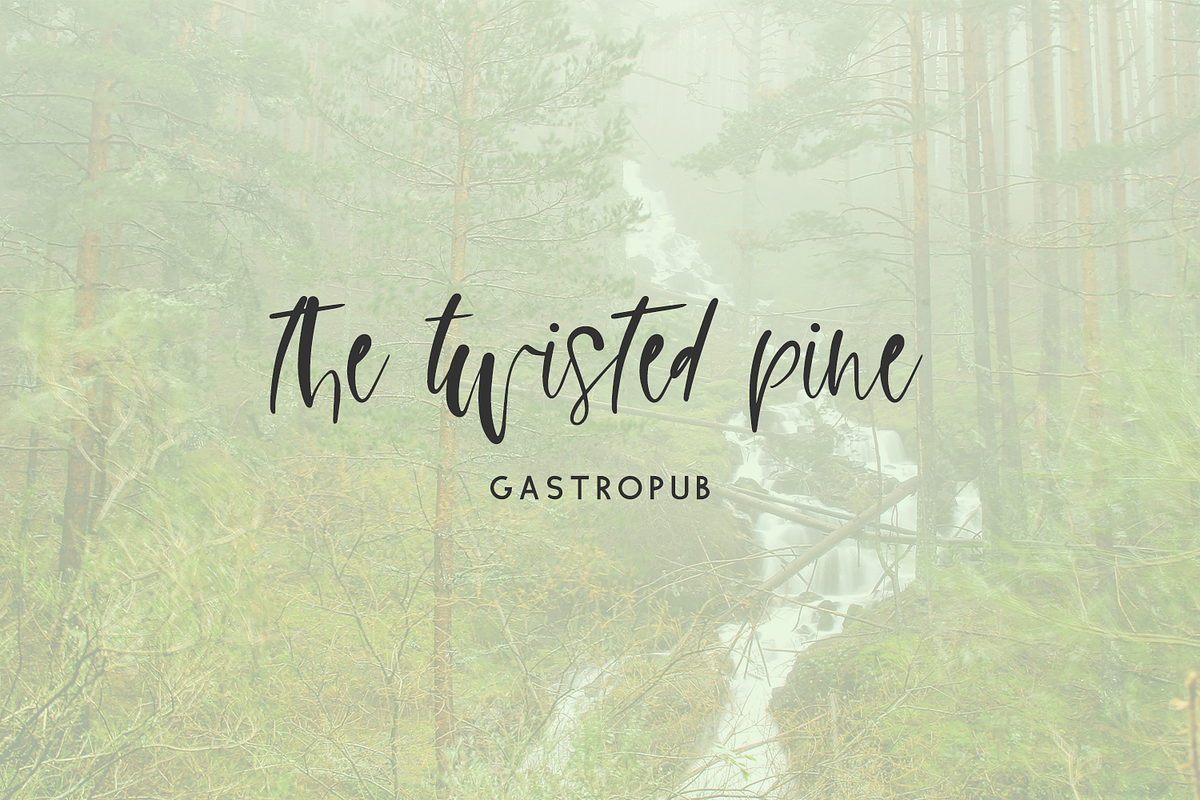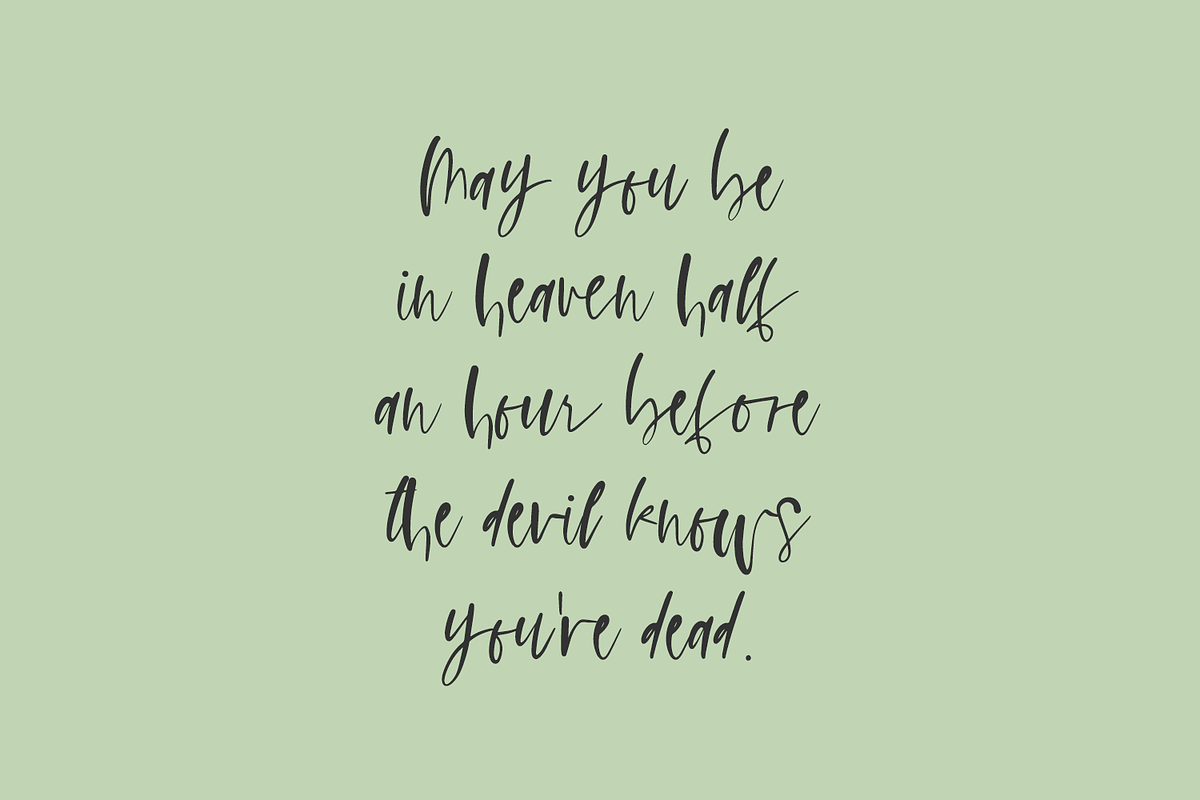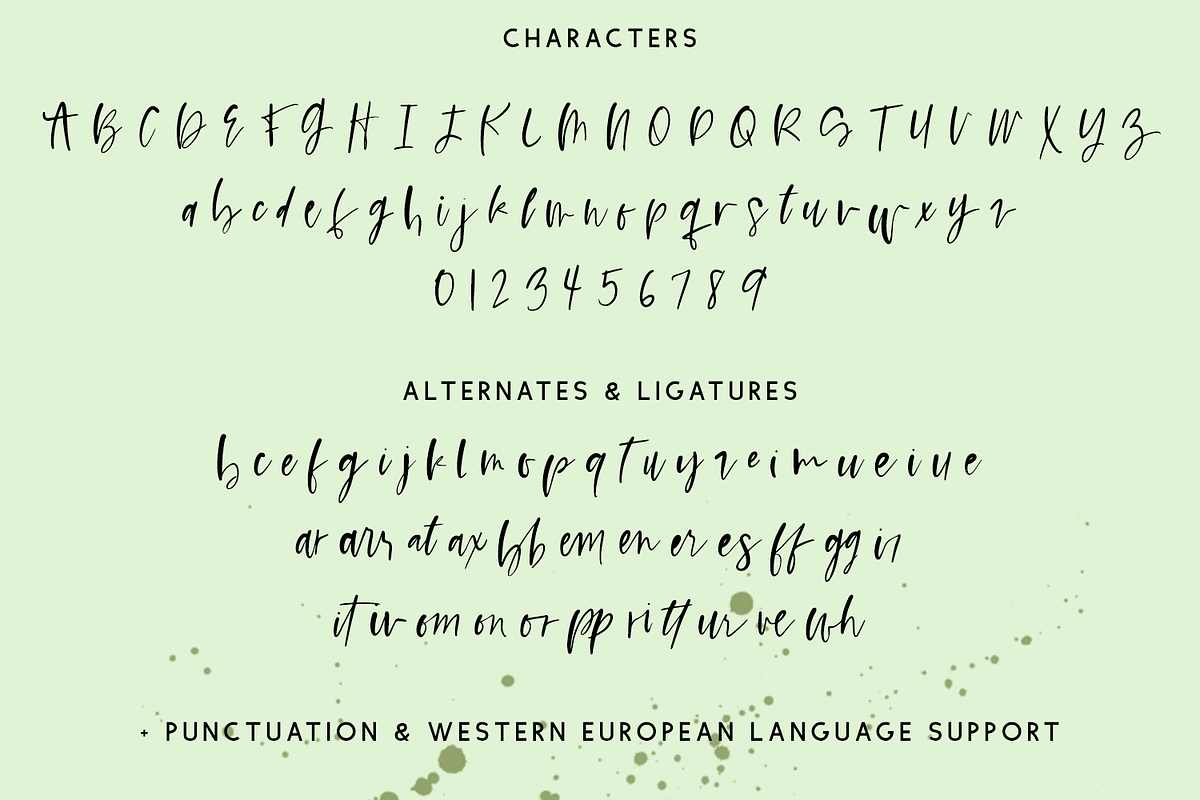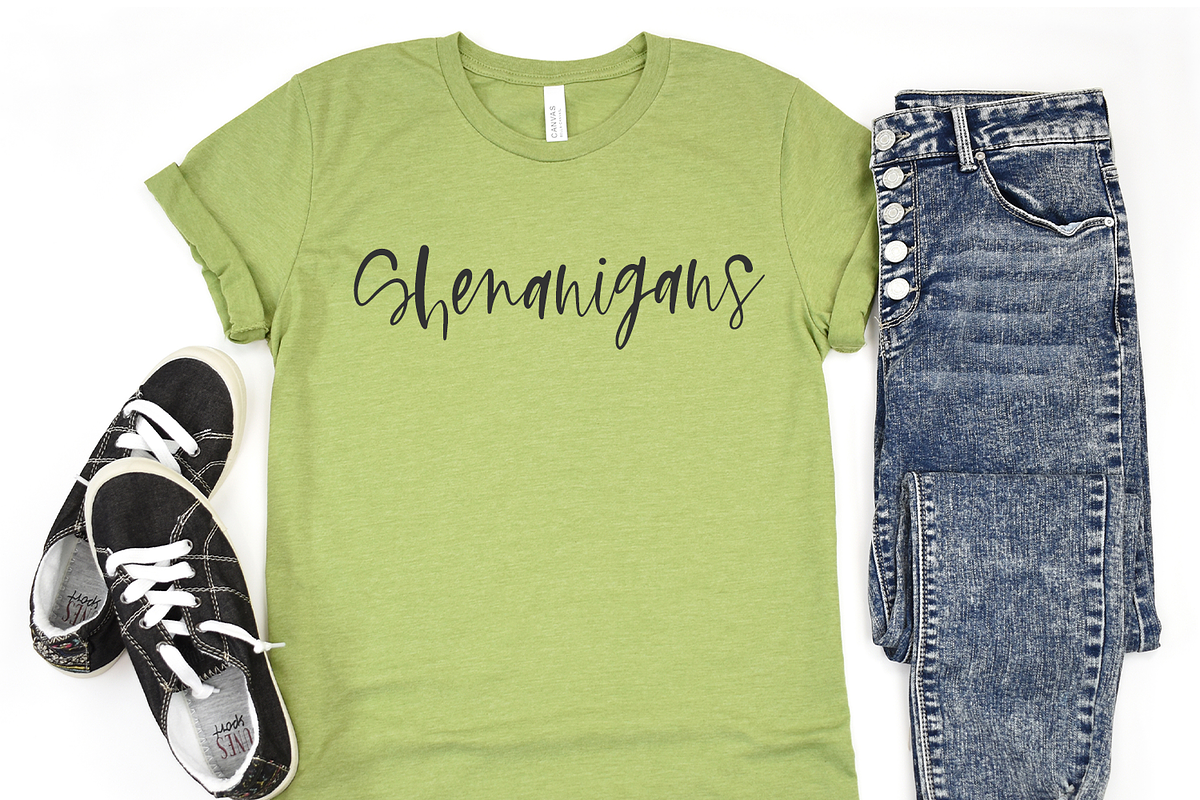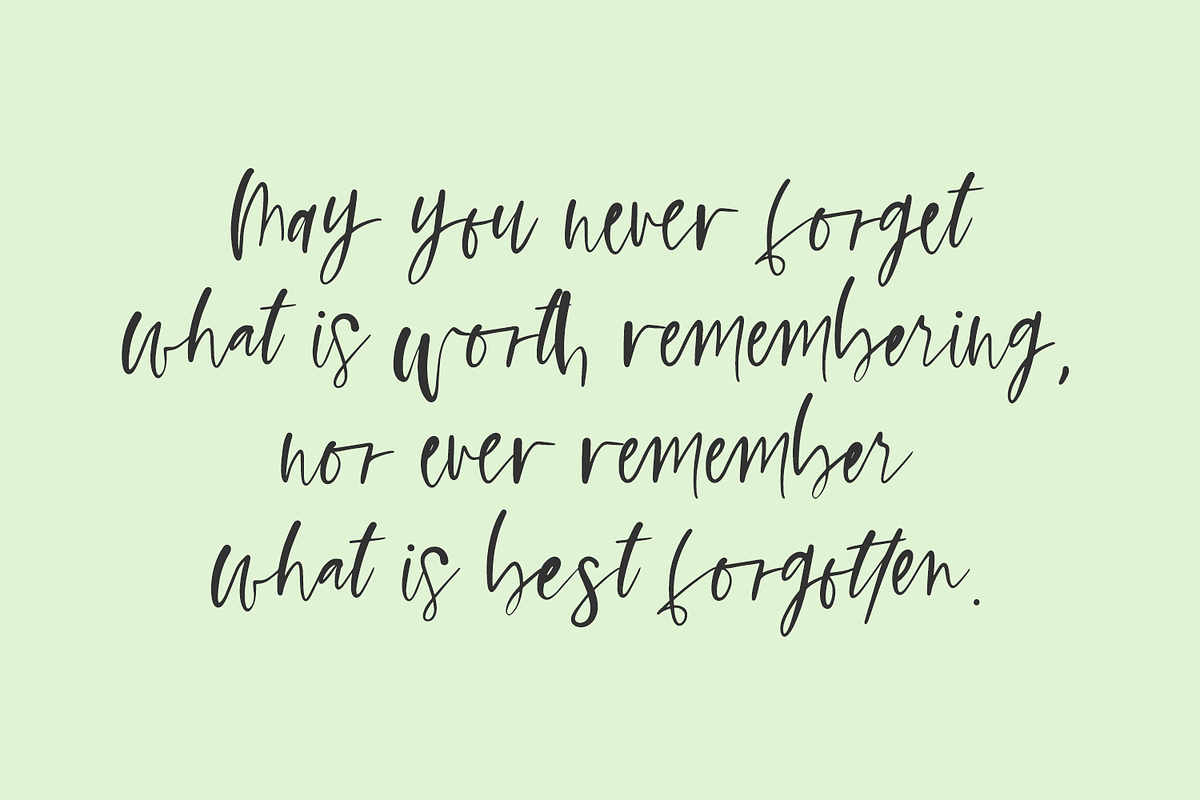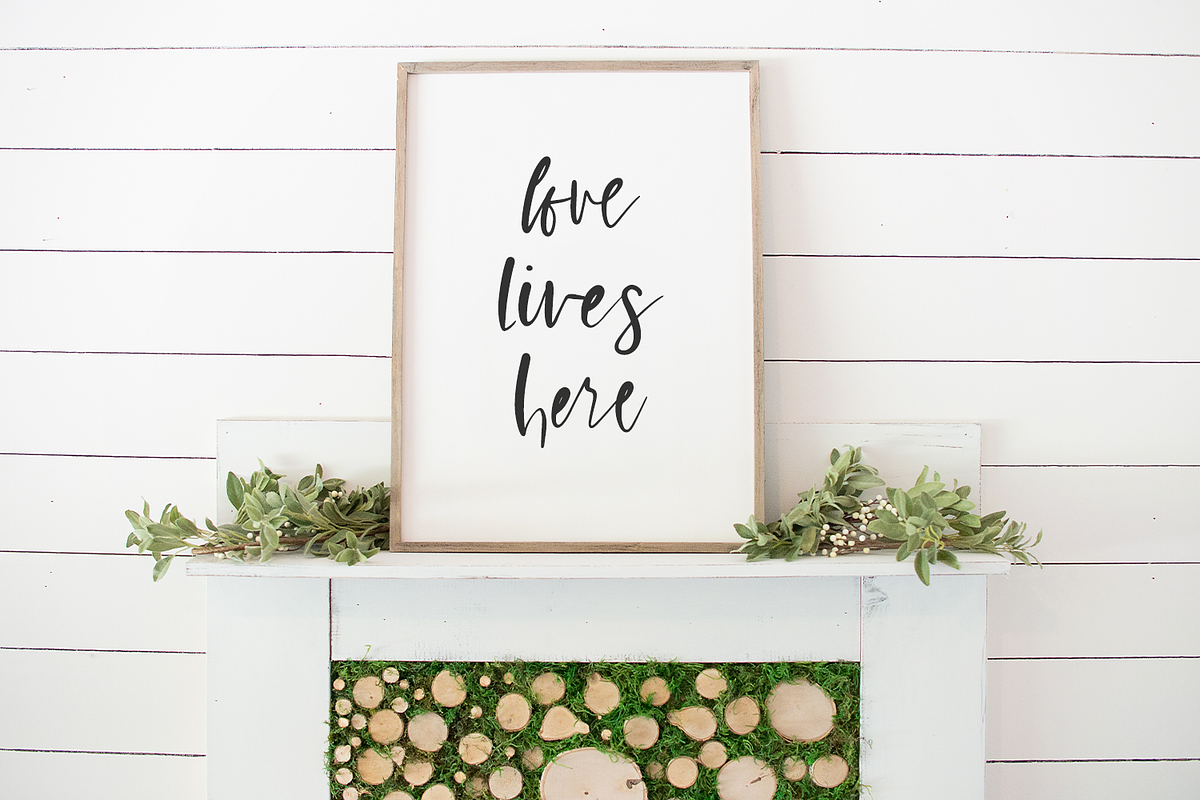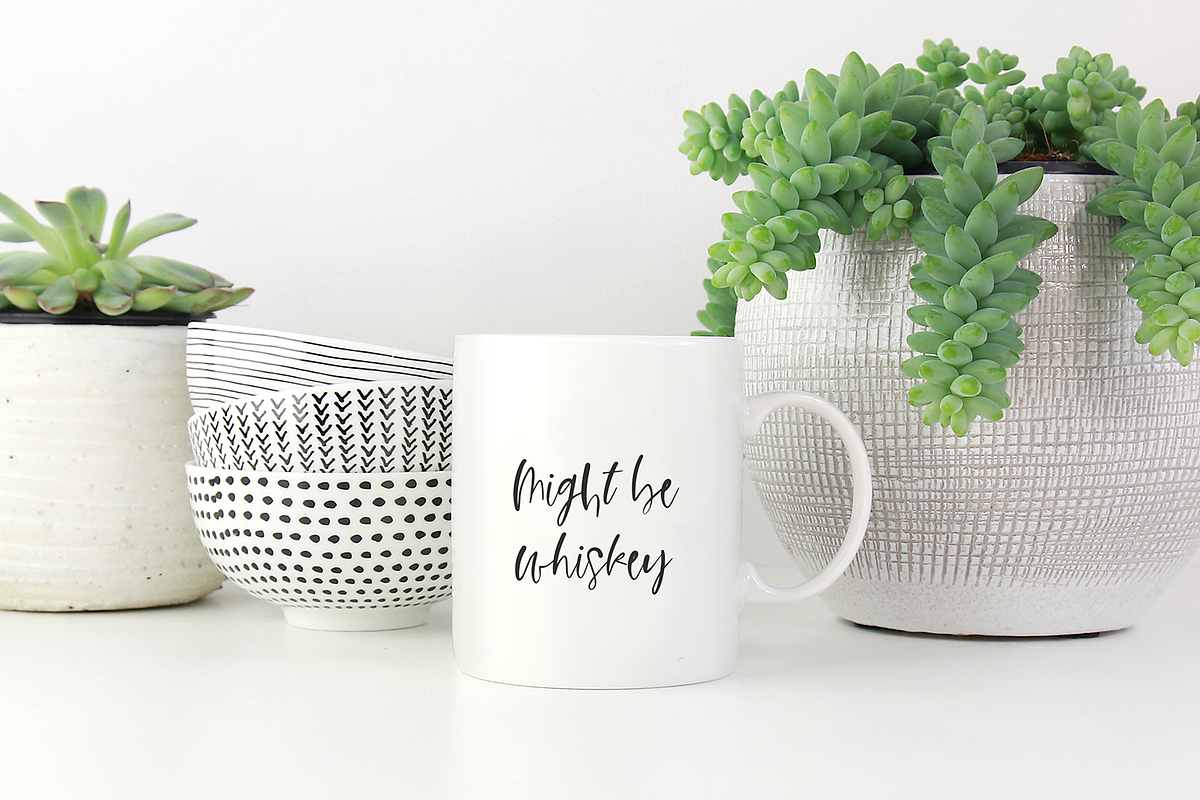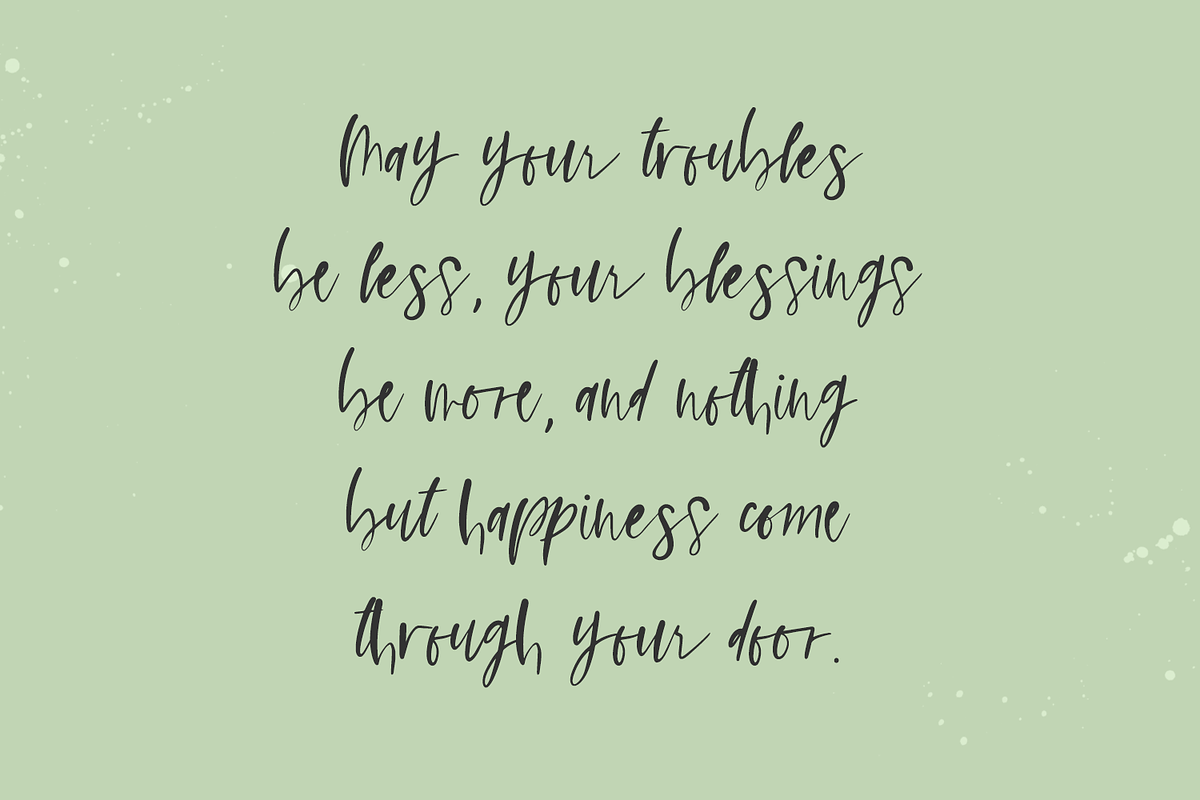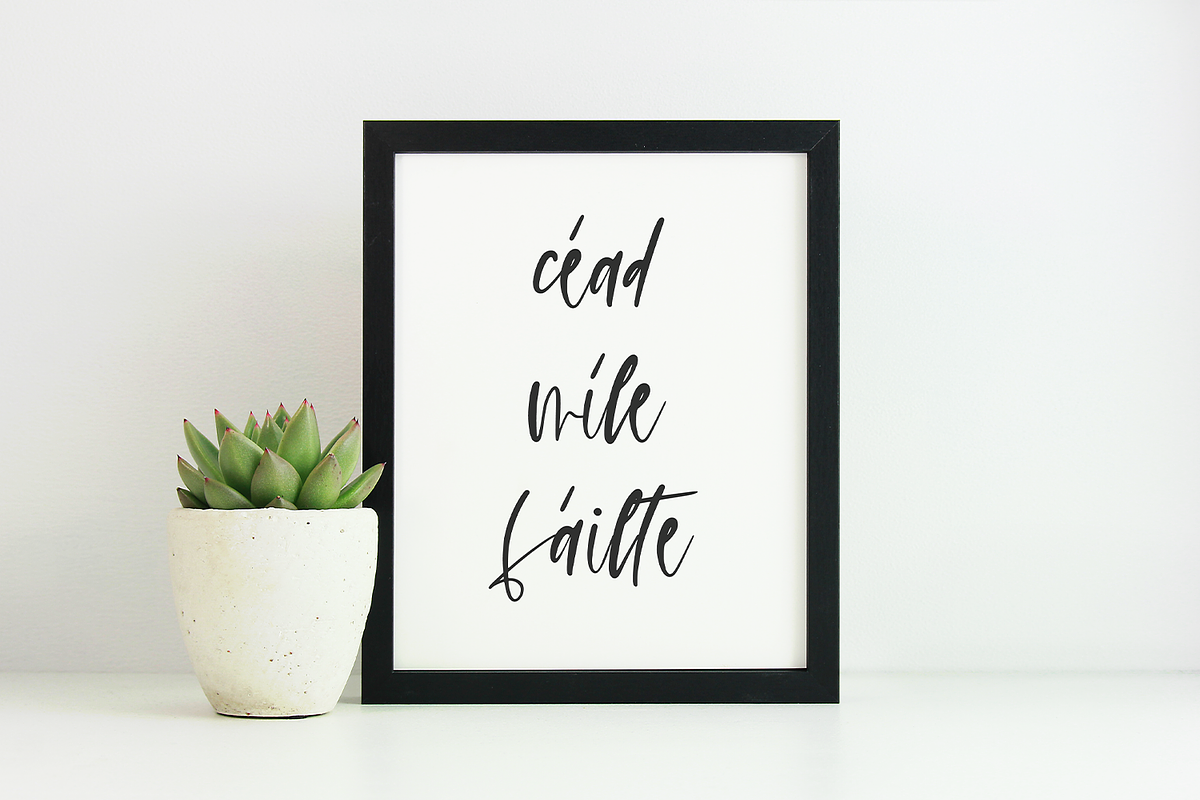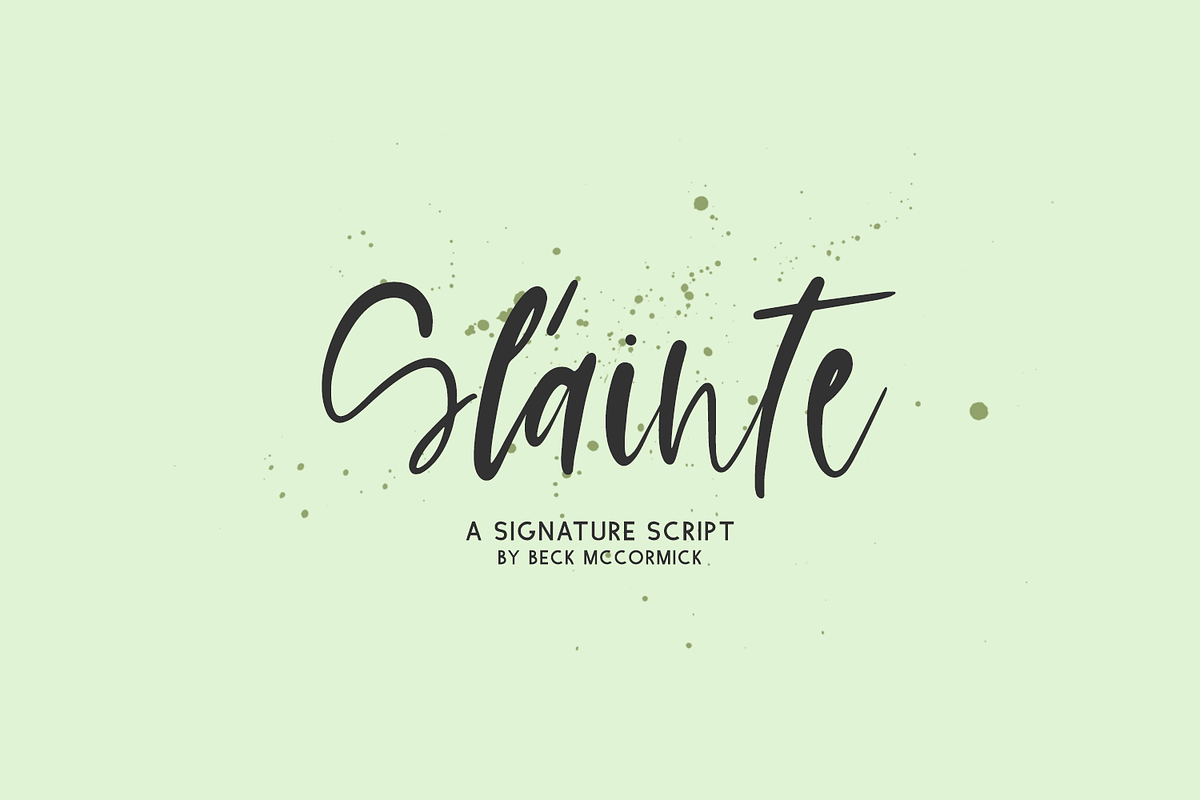
Slainte Script
Introducing Slainte, a handwriting font that features alternate characters and ligatures.
Slainte is best for:
- logos + branding
- digital planners & apps like Goodnotes
- website design + website accents, blog design
- clean print design, like magazines + flyers
- wedding invitations, wedding favors, or wedding decor
- farmhouse decor and crafts
- header elements that need handwritten touch
- quote graphics for social media
- modern graphic tee shirt design & other apparel
Slainte includes:
- full upper + lowercase characters
- numbers + punctuation
- Western European Language Support
- 25 alternates
- 23 ligatures - ar, arr, at, ax, bb, em, en, er, es, ff, gg, ir, it, iv, om, on, or, pp, ri, tt, ur, ve, wh